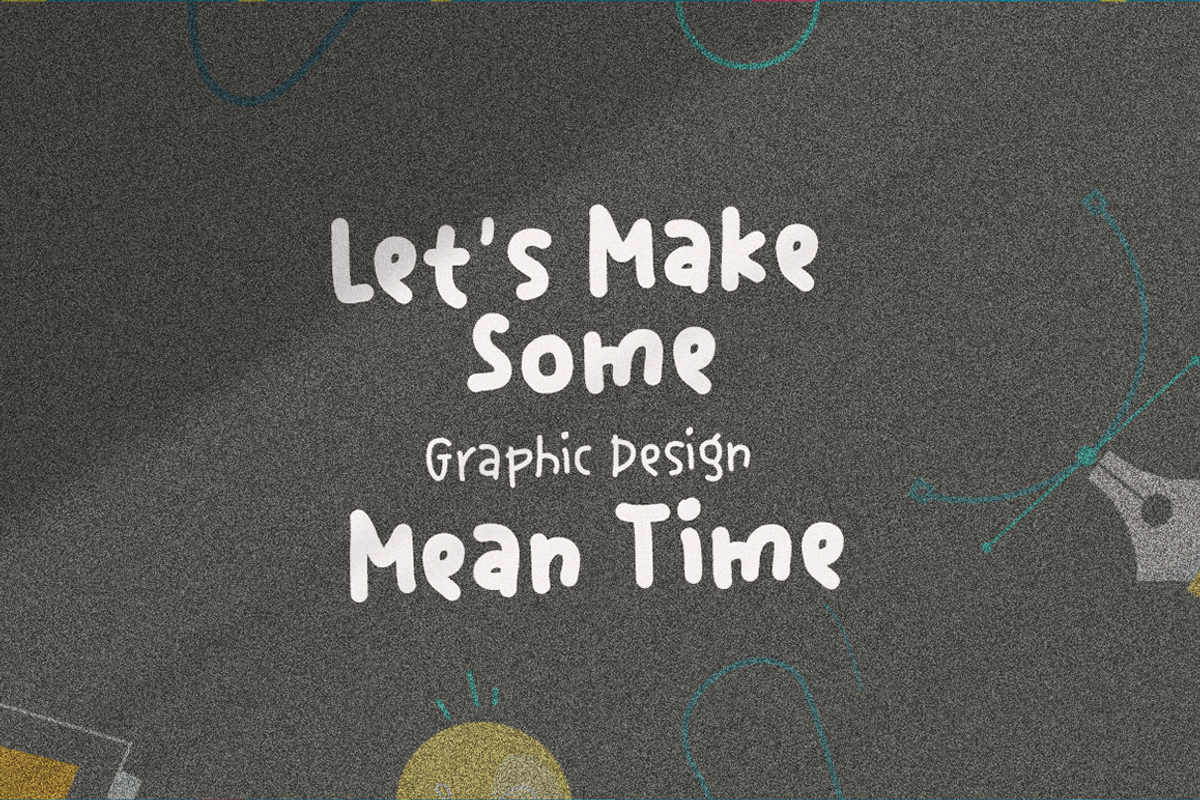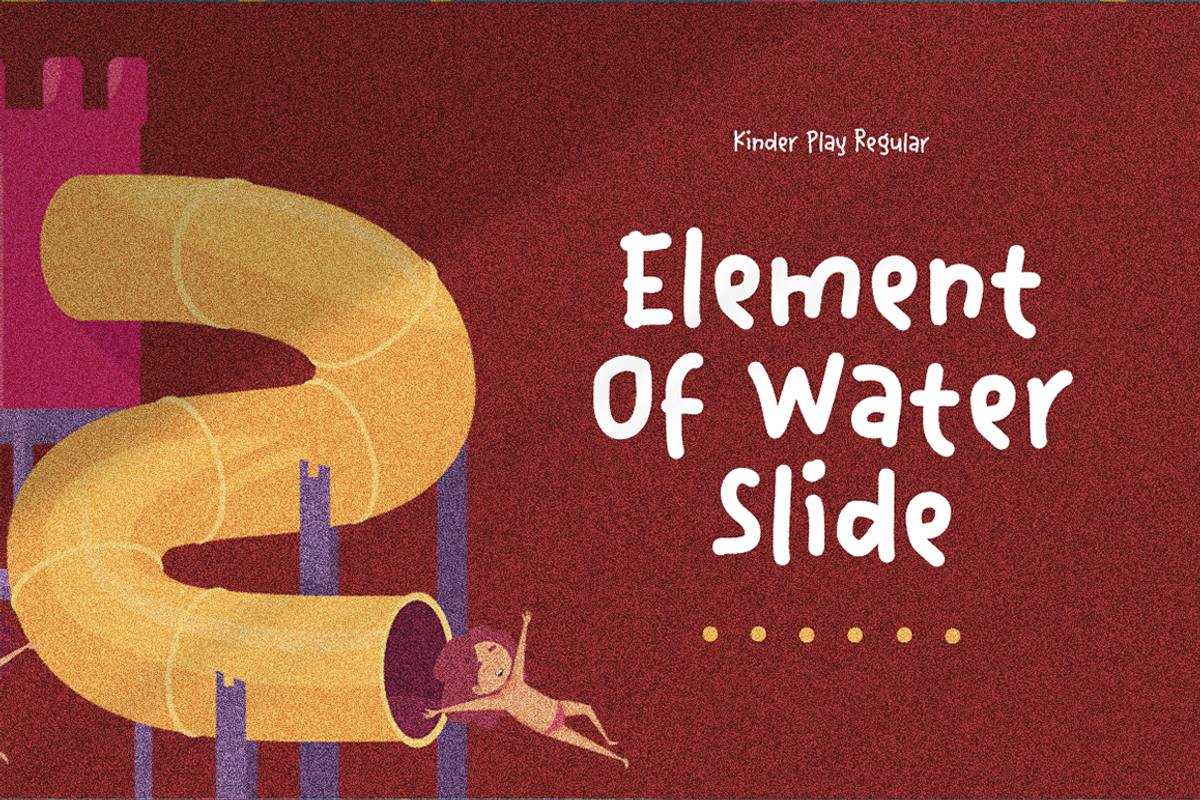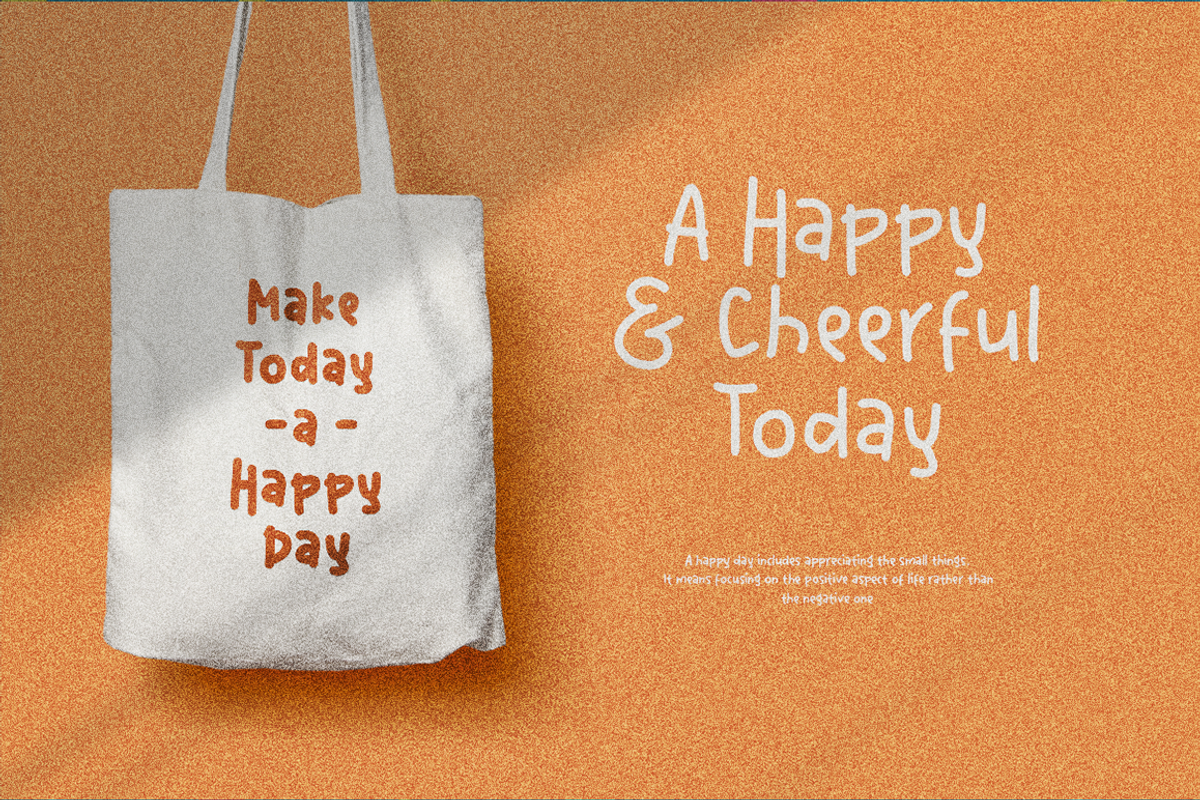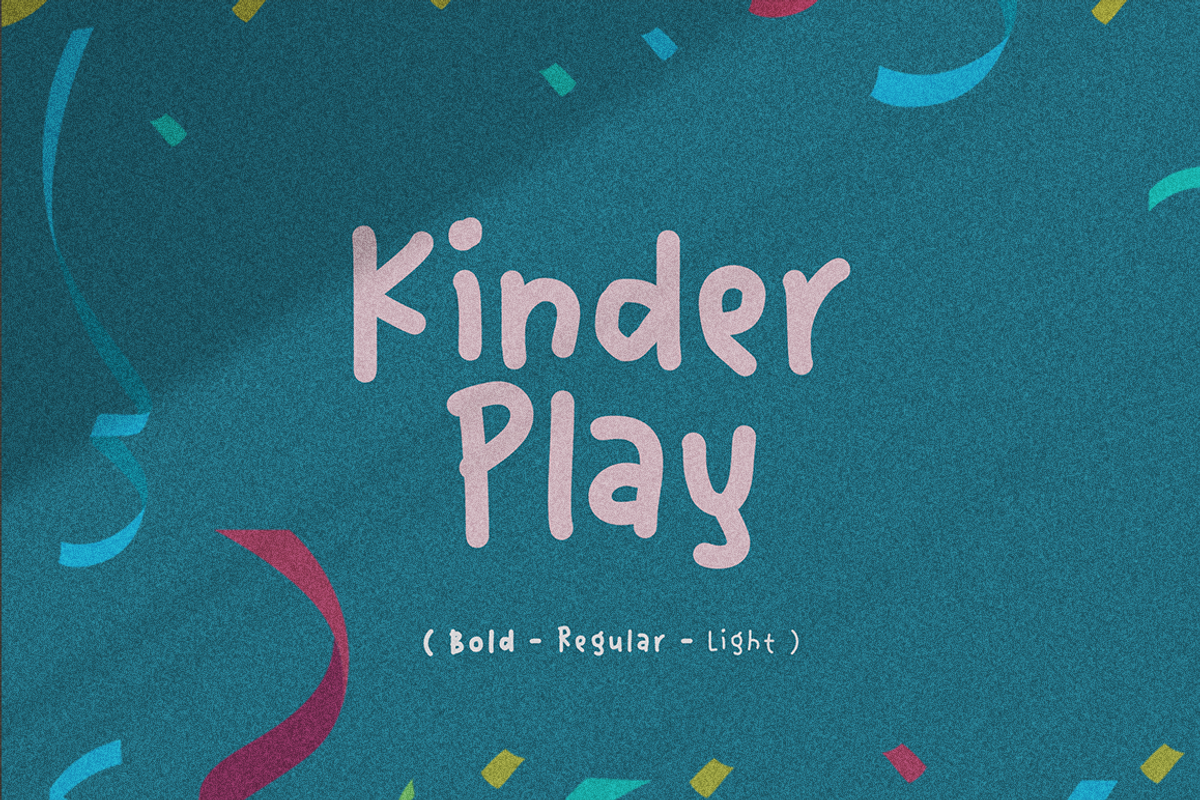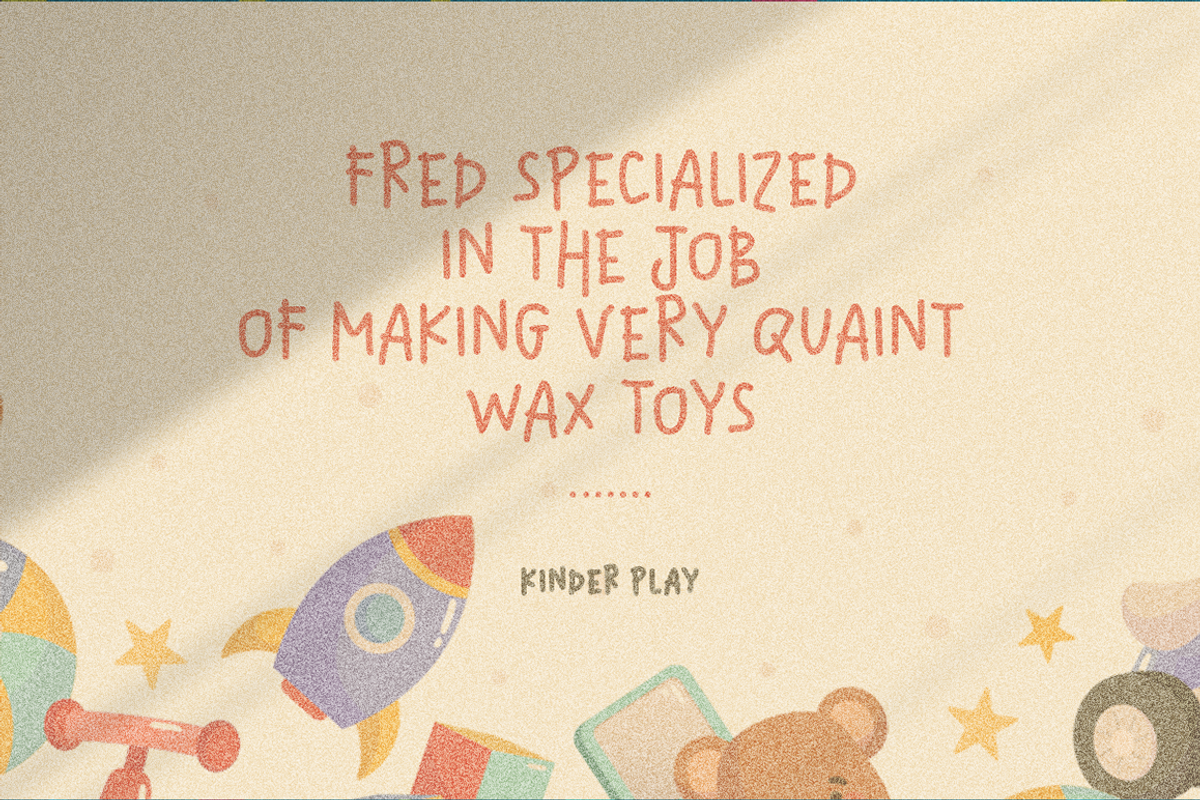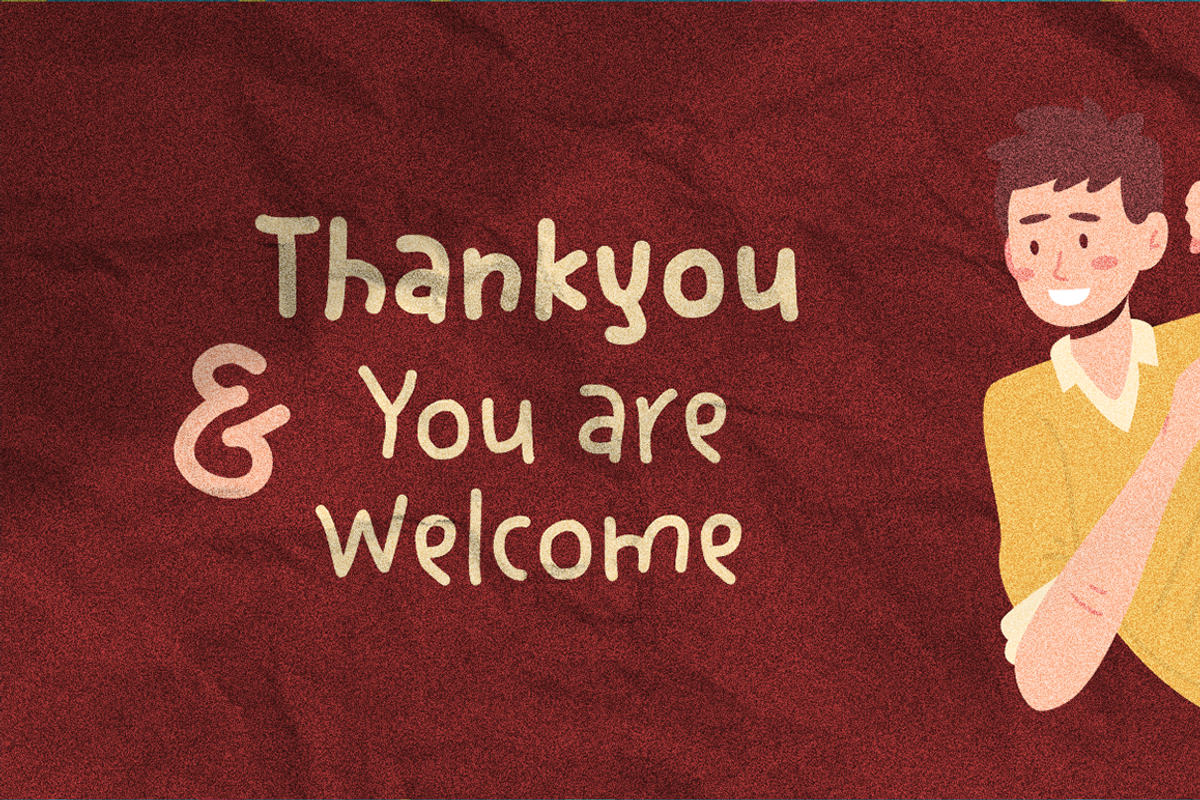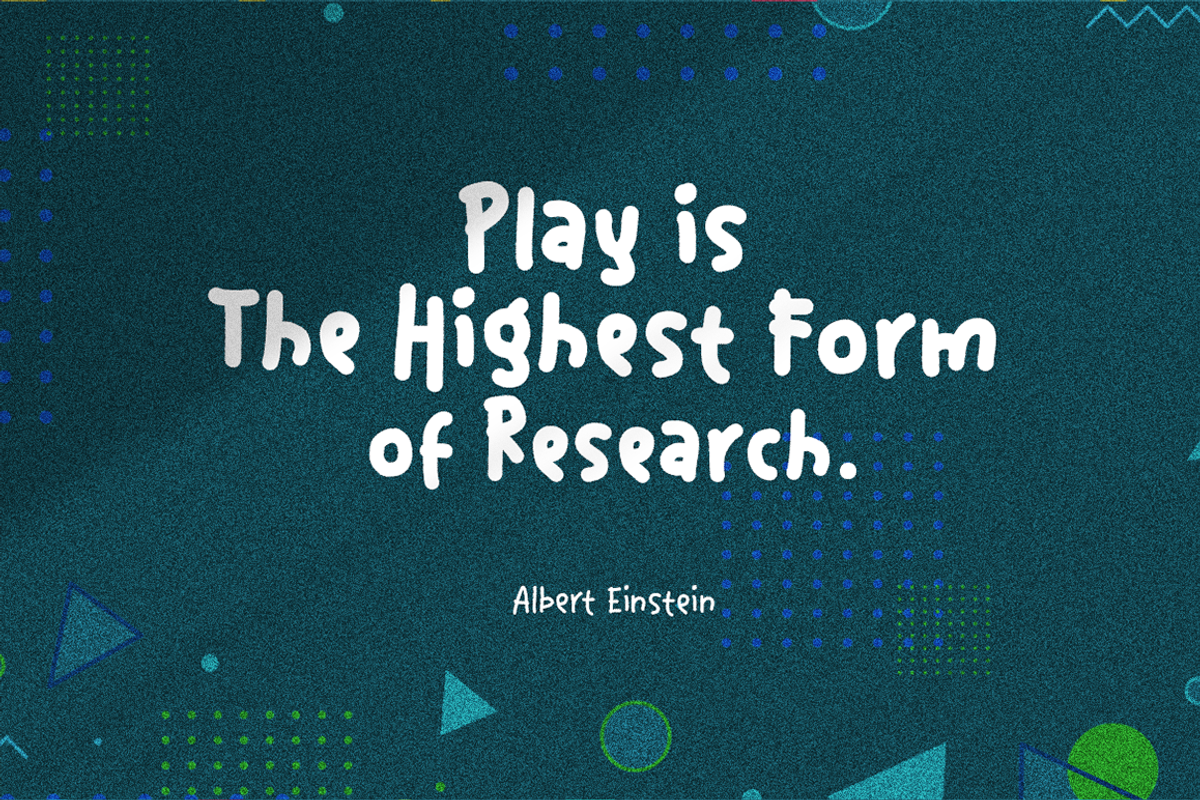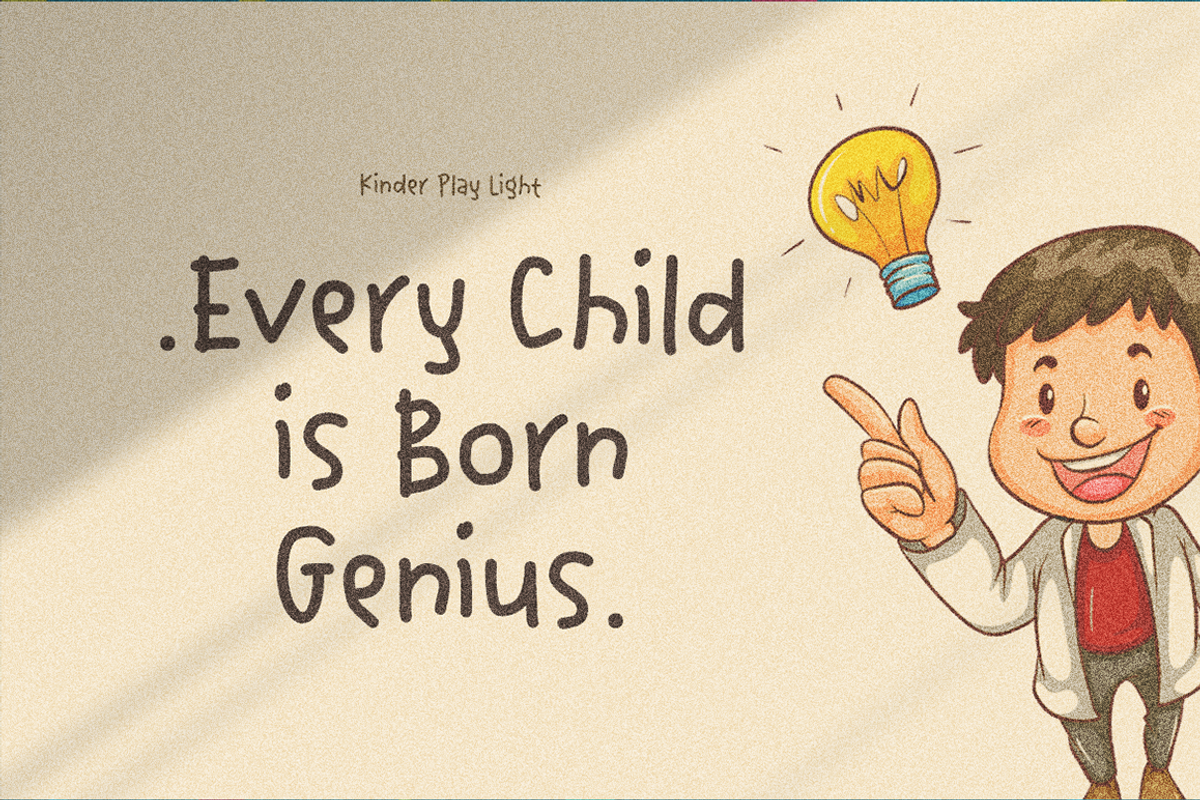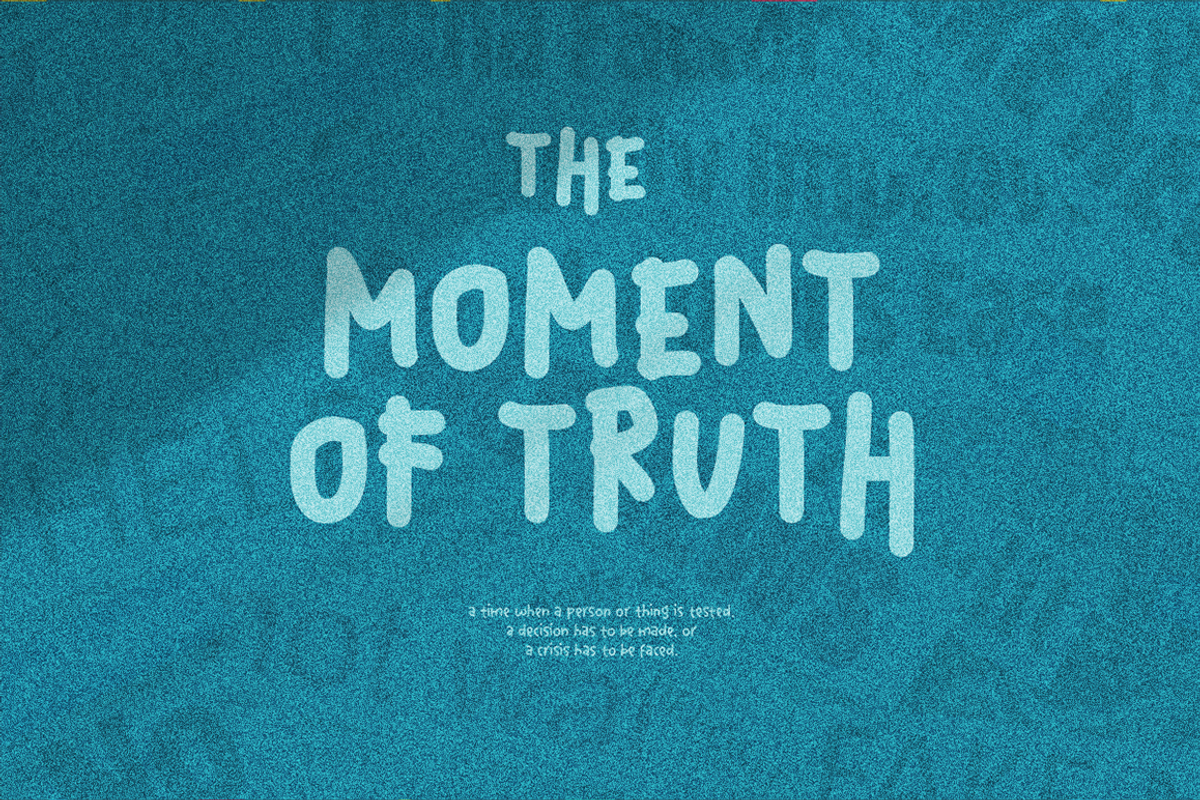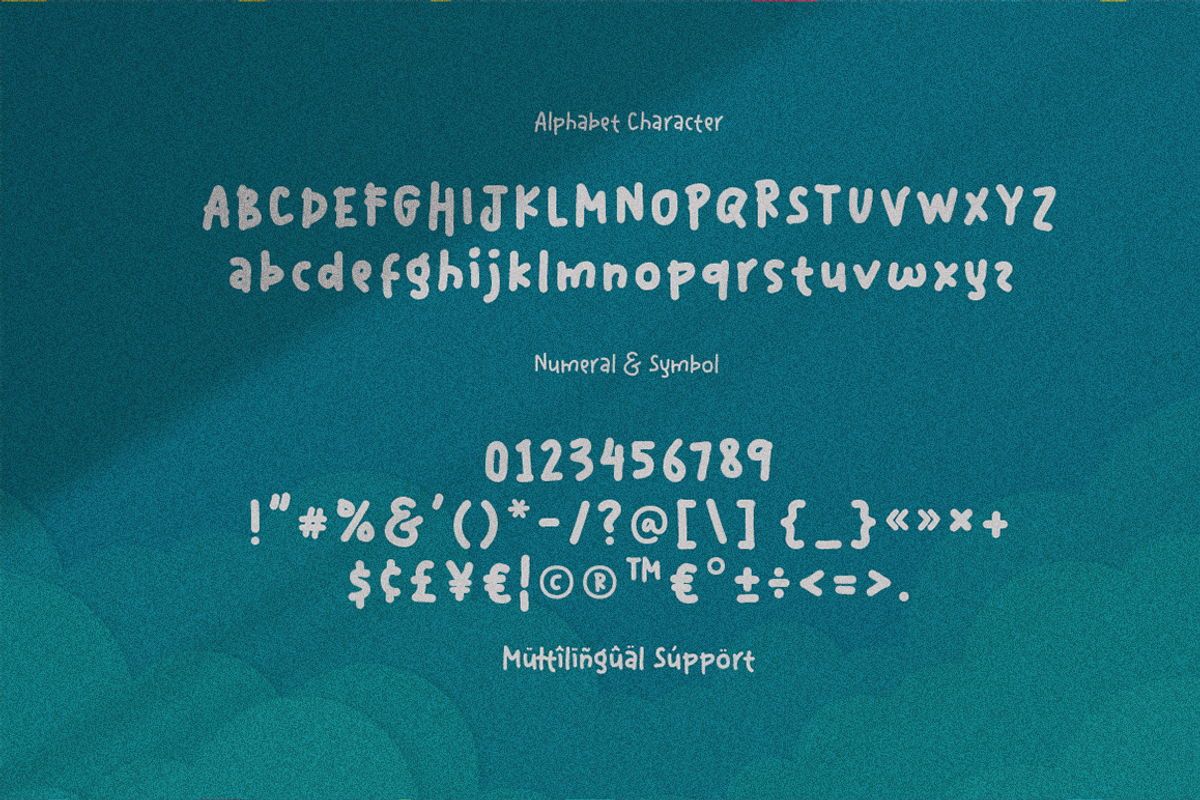
Kinder Play Handwriting
Kinder Play is a charming, hand-drawn font that brings a playful and whimsical touch to any design. With three versatile weights, this font offers flexibility, making it perfect for a variety of projects. Whether you're creating heartfelt quotes, handwritten notes, or playful designs, Kinder Play adds an authentic, warm vibe with its unique, casual strokes. Its organic, handcrafted feel makes it ideal for children's projects, invitations, greeting cards, and creative branding. Give your text a fun and approachable personality with Kinder Play, the perfect choice for adding a personal and friendly touch to your designs.
- Unique Handwriting Font
- Modern and Elegant